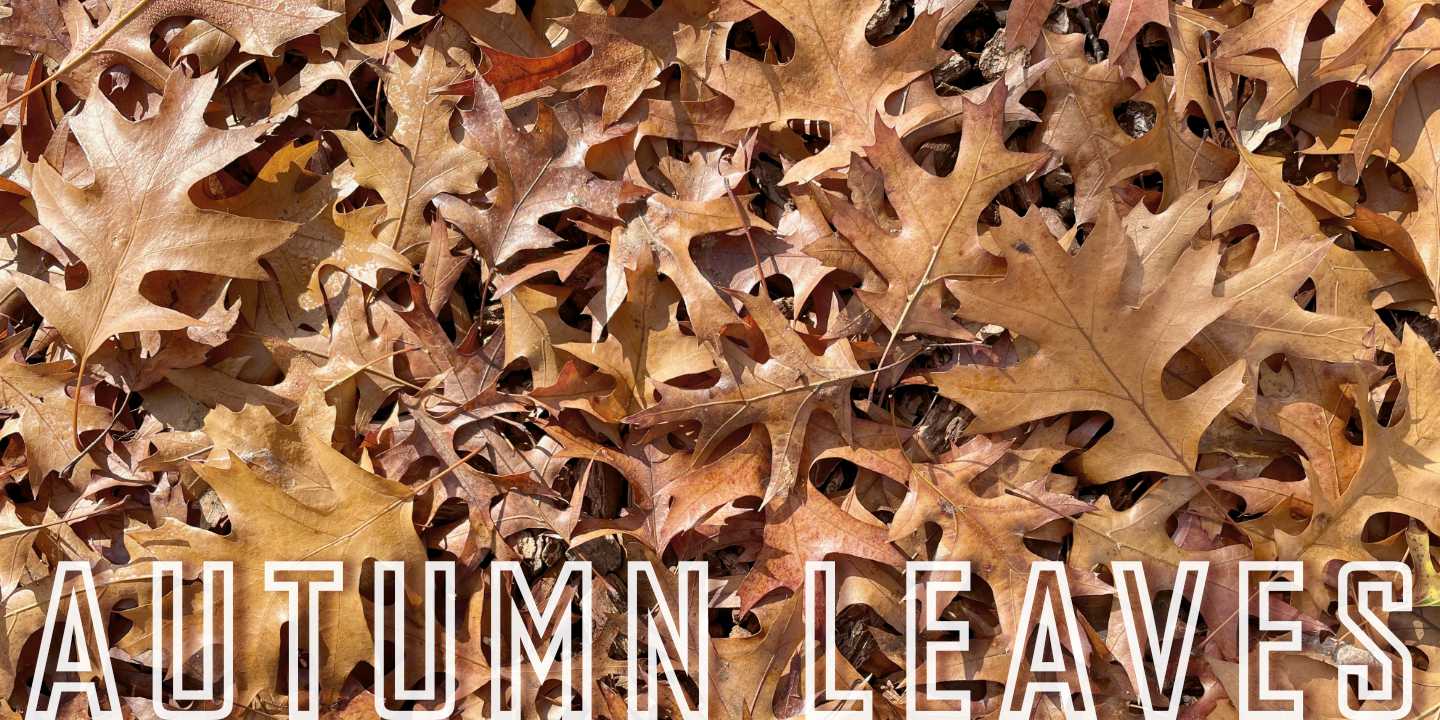
Agency Gothic CT Inline
Agency Gothic Inline is a new face that is based on Agency Gothic Bold. All Agency Gothic CT fonts include an alternate 'A' in the lowercase, and support all European languages that use the Latin alphabet and most that use the Cyrillic alphabet. Click on the Glyph Chart link at right to view or print all glyphs.
Agency Gothic CT is available in 6 styles: Light, Medium, Bold, Condensed, Inline and Open.